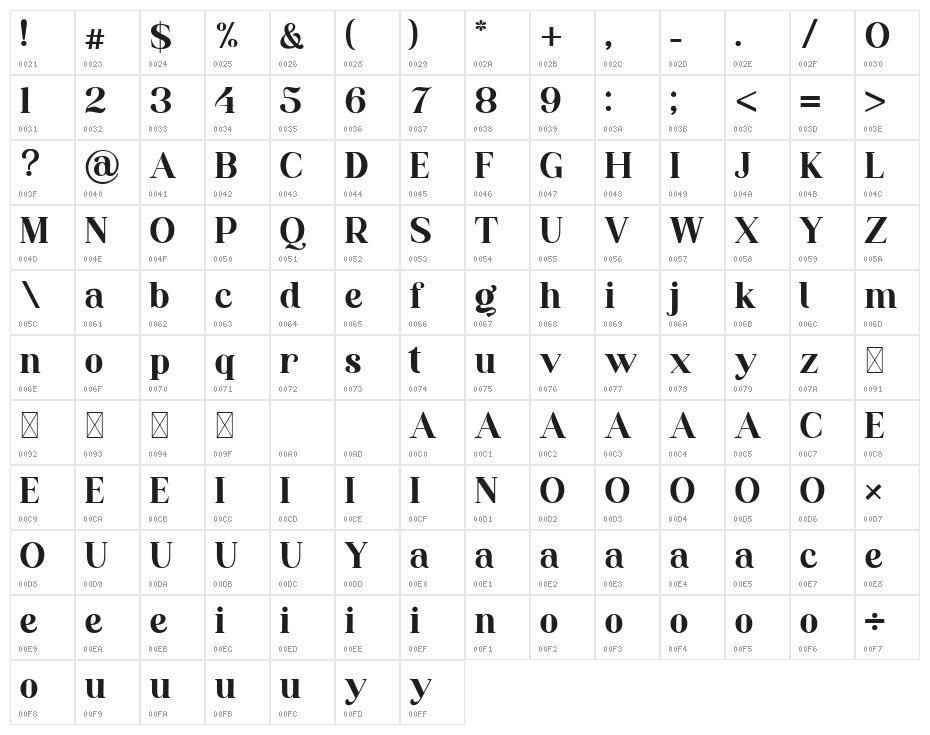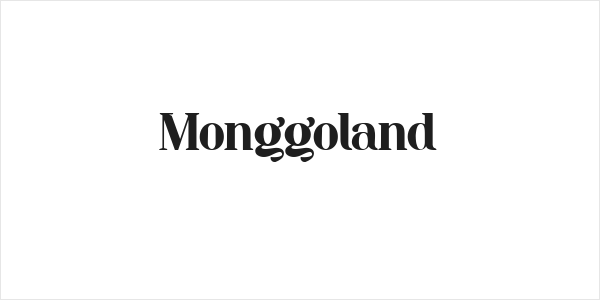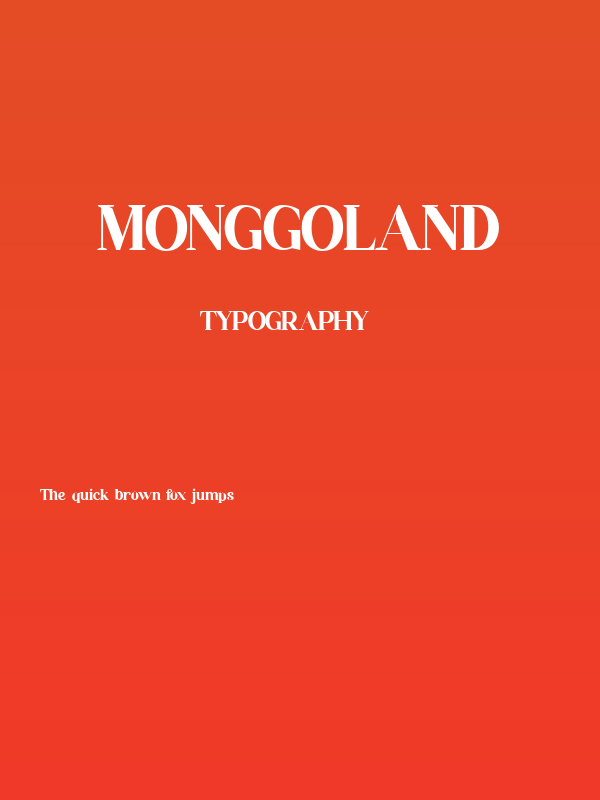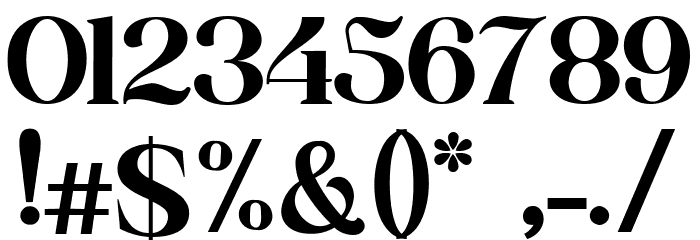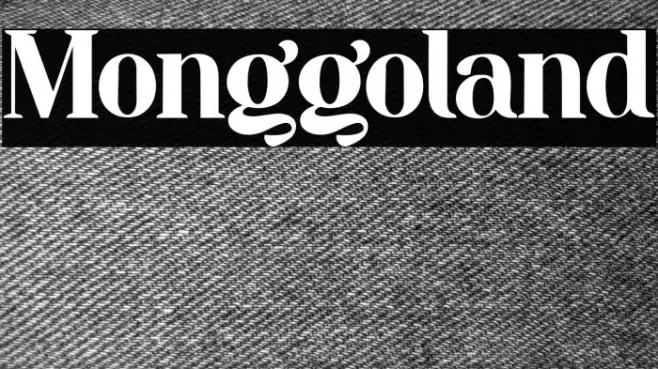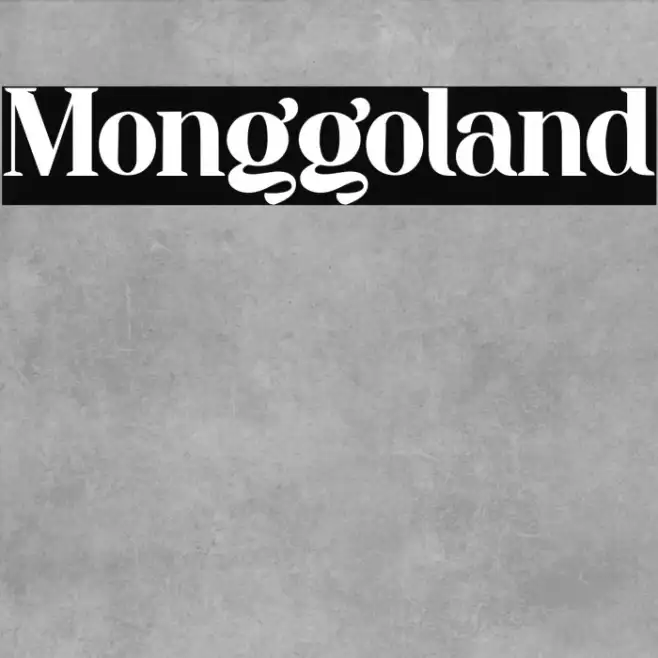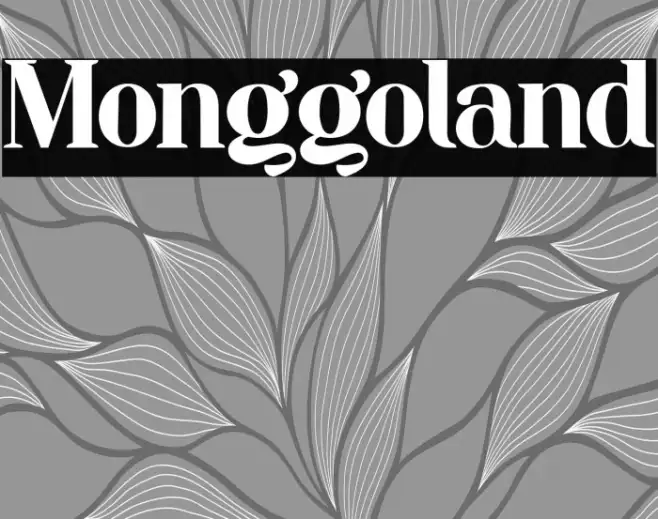
Monggoland Font
Monggoland Description
This font features a bold and striking serif style with high contrast between thick and thin strokes. The uppercase letters are characterized by strong vertical lines and pronounced serifs, giving them a classic and authoritative appearance. The lowercase letters maintain the same boldness, with rounded forms that add a touch of elegance. Numbers are consistent with the overall style, featuring the same high contrast and serif details. Special characters are designed to match the bold and classic aesthetic, ensuring a cohesive look across all glyphs. The font's overall design is reminiscent of traditional serif fonts but with a modern twist, making it suitable for a variety of design applications.